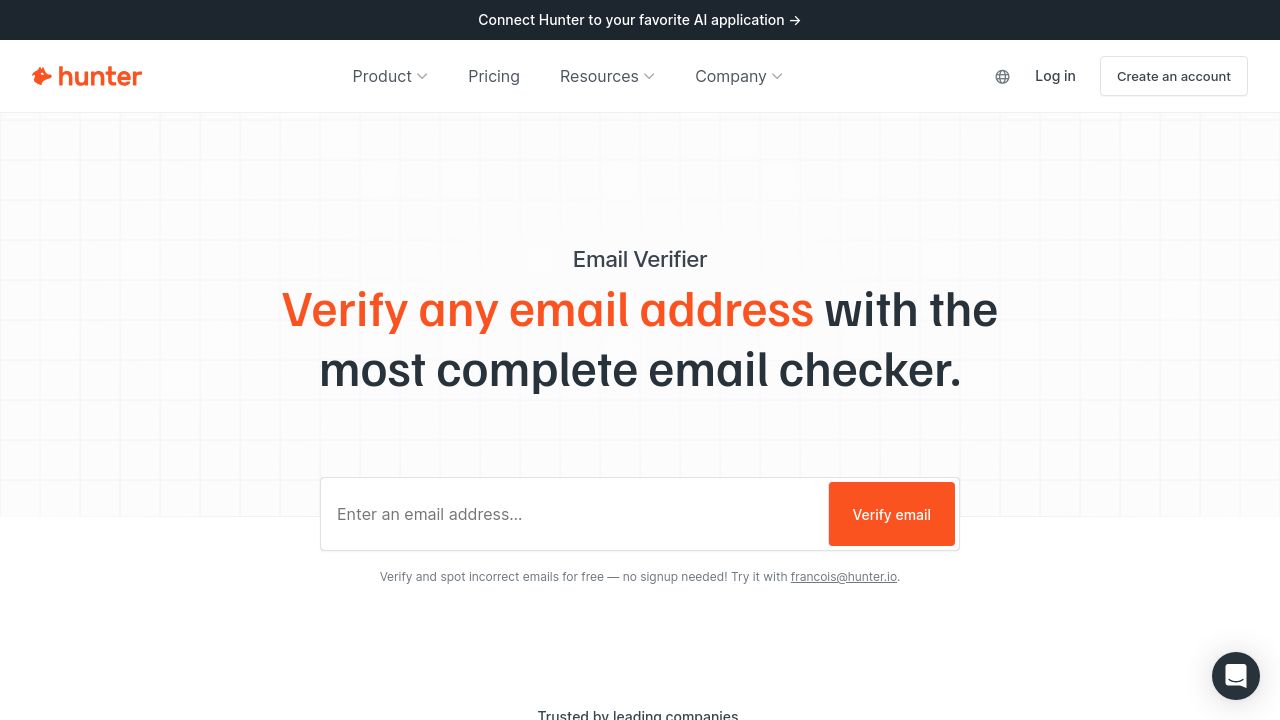
What fonts does Hunter use?
Hunter.io uses Inter, Familjen Grotesk, Font Awesome 6 Pro, Font Awesome\ 6 Brands and Font Awesome Kit as its main typefaces. Arial, Helvetica, Roboto and helvetica-neue are declared as fallbacks. 15 fonts detected, last checked Sep 29, 2026.
hunter.io, a leading platform for email verification, leverages a distinct typography choice with fonts like Inter and Familjen Grotesk. These fonts convey clarity and reliability, essential for their audience of professionals who need to avoid risky email addresses. The use of Font Awesome icons further enhances functionality, ensuring users can navigate the site effortlessly. This combination of custom fonts supports hunter.io's commitment to providing a straightforward user experience while maintaining a clean visual identity.
Frequently asked questions about Hunter.io's fonts
What fonts does Hunter.io use?
Hunter.io uses Inter, Familjen Grotesk, Font Awesome 6 Pro, Font Awesome\ 6 Brands and Font Awesome Kit as its main typefaces. Arial, Helvetica, Roboto and helvetica-neue are declared as fallbacks. 15 fonts detected, last checked Sep 29, 2026.
What fonts does hunter.io use?
hunter.io primarily uses Inter and Familjen Grotesk for its typography, along with various Font Awesome fonts for icons.
How do the fonts on hunter.io compare to alternatives?
Inter offers great legibility and versatility, making it a popular choice alongside Familjen Grotesk, which has a unique aesthetic. Together, they stand out against standard options like Arial or Helvetica.
What font weights are used on hunter.io?
hunter.io primarily uses normal weights for Inter and Familjen Grotesk, while Font Awesome 6 Pro is used with a weight of 900 for bold icons.
What fallback fonts does hunter.io use?
In case the primary fonts are unavailable, hunter.io falls back on Arial, Helvetica, Roboto, helvetica-neue, and Segoe UI to ensure consistency in its design.